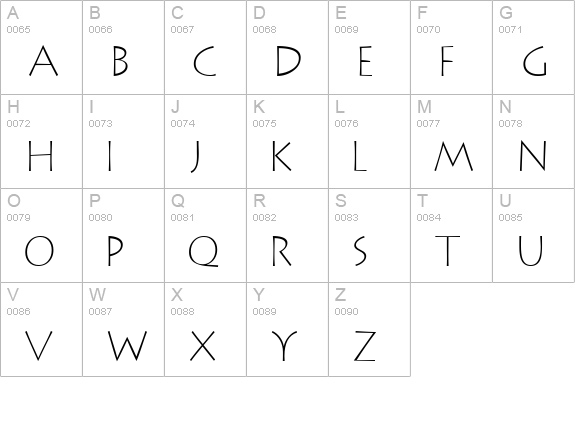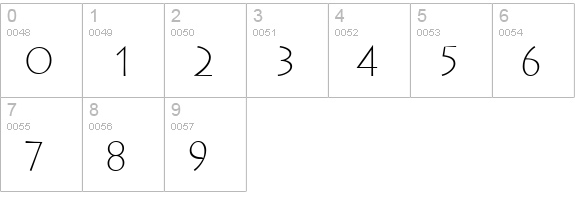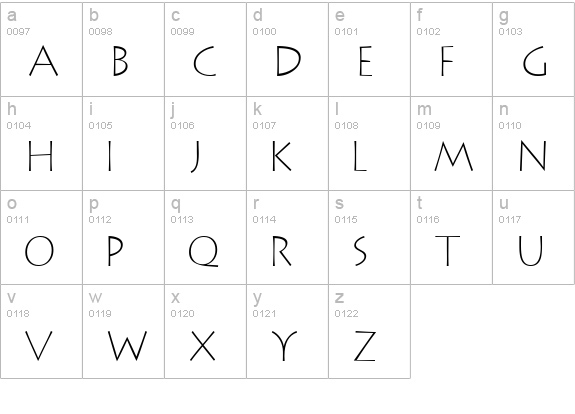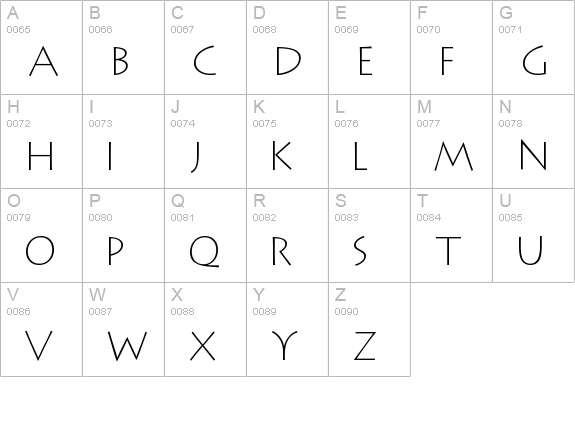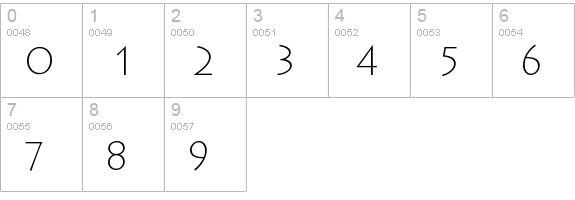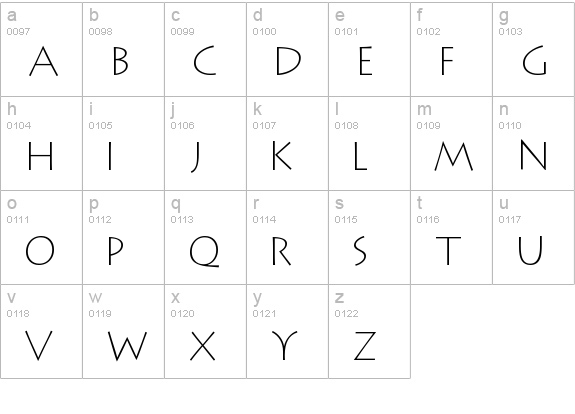
AustereLightCapsSSK Font Details
AustereLightCapsSSK font is a sleek and sophisticated typeface that exudes elegance and modernity. With its clean lines and minimalist design, this font is perfect for creating a professional and contemporary look in your design projects. The tall, slender letterforms of AustereLightCapsSSK font add a touch of sophistication and refinement to any text. This font is ideal for headlines, titles, logos, and other display purposes where a clean and modern look is desired. Its light weight conveys a sense of airiness and delicacy, making it a versatile choice for a variety of design applications. Best of all, AustereLightCapsSSK font is available for free download at FontsMarket.com. Simply visit the website to access this stylish and modern typeface at no cost. Add a touch of sophistication to your designs with AustereLightCapsSSK font today!